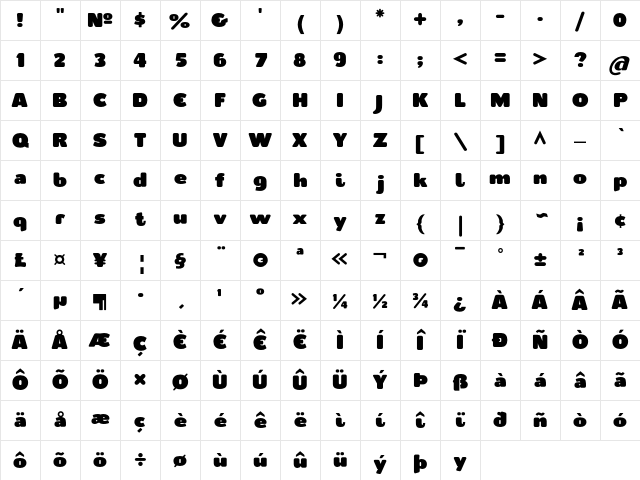
Cepo Plain Free Font
Cepo Plain
Design Context for Cepo
Cepo is a composed and adaptable typeface that performs quietly and consistently across a wide range of design contexts.